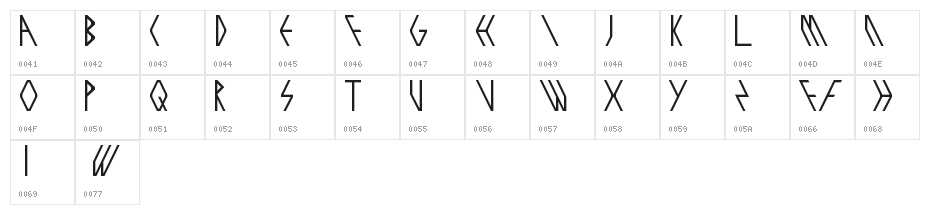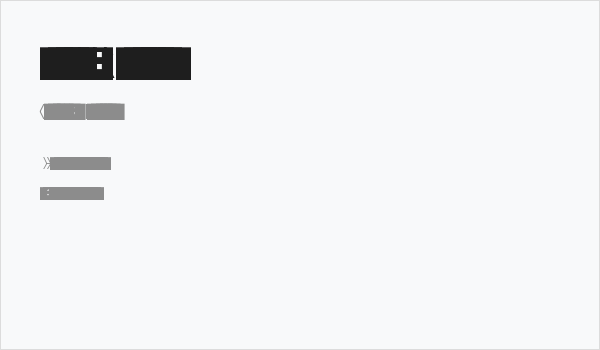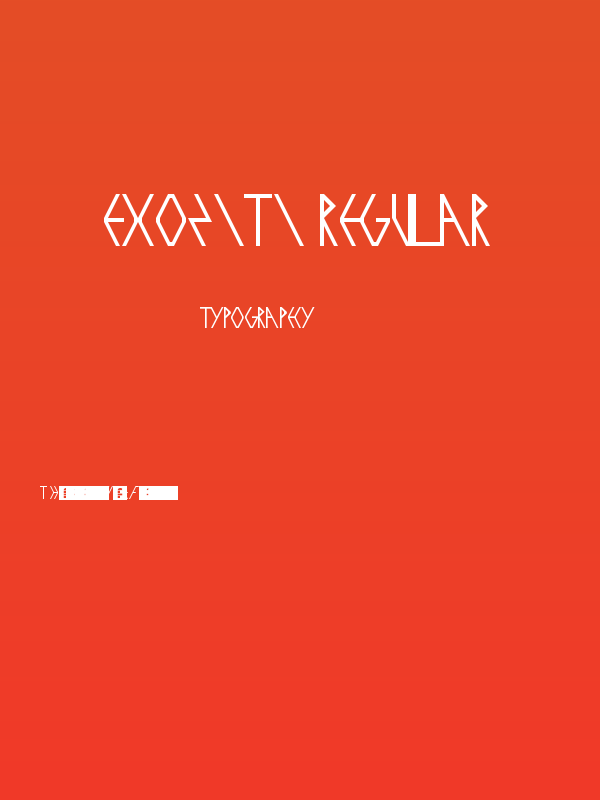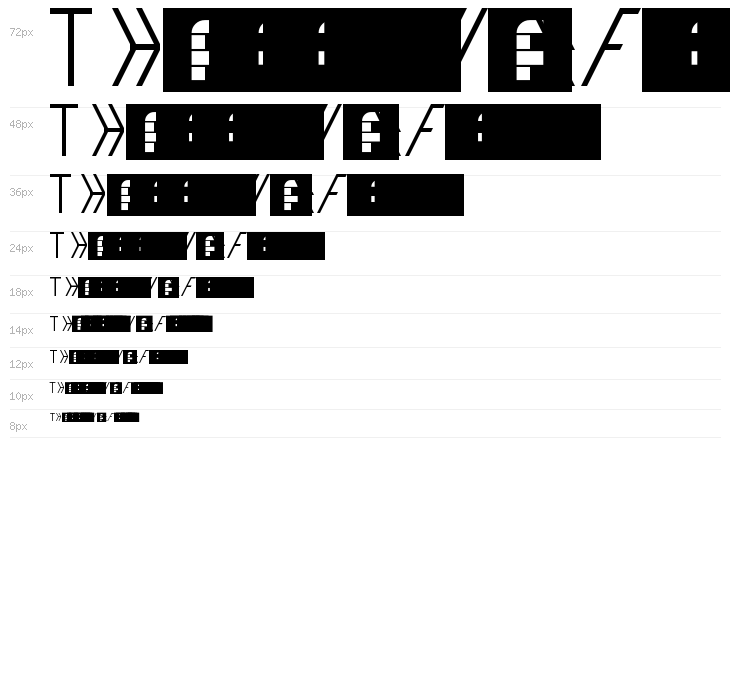
exoziti Regular Font
exoziti Regular Description
This font features a unique and futuristic design with angular, geometric shapes that create a sense of movement and modernity. The uppercase letters are particularly striking, with sharp edges and a distinct architectural feel. The lowercase letters maintain this geometric style, offering a cohesive look throughout. Numbers and special characters are crafted with the same attention to detail, ensuring consistency across all elements. The font's bold and distinctive appearance makes it ideal for projects that require a modern and innovative touch.